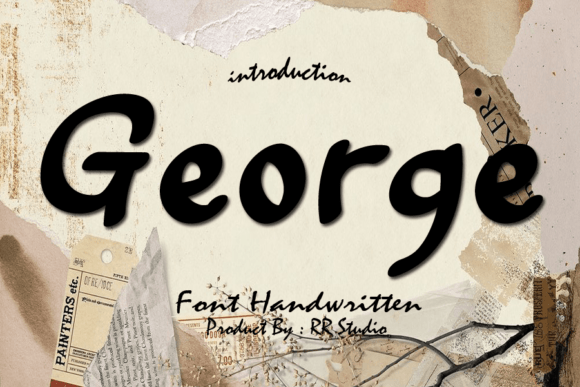
George Font
About George Font
“George Font: Sweet and Cursive Elegance for Creative Delight
Introducing George, a sweet and cursive handwritten font designed to bring a gentle and joyful touch to your creative projects. This font exudes a romantic charm that will look gorgeous on a variety of design ideas, adding a delightful and whimsical element to your work.
George is more than just a font; it’s a design asset that infuses your projects with a sweet and cursive elegance. The gentle curves and flowing script make it a versatile choice for a wide range of creative applications.
The sweet and cursive elegance of George shines through in its ability to enhance the visual appeal of your designs. Whether you’re creating logos or working on corporate identity, George adapts effortlessly to bring a touch of joy to your creations.
For headlines and logotypes, George becomes a standout choice, adding a sweet and romantic touch to your text. The font’s cursive style contributes to a visually pleasing and memorable design.
In various creative projects such as posters, music covers, social media posts, and more, George serves as a delightful element, creating a visual impact with its handwritten charm. Its versatile design adds a touch of whimsy to your creative endeavors.
George’s suitability extends to a wide array of design applications, making it ideal for logotypes, corporate identity, posters, social media, and more. The font’s charming character enhances the overall aesthetics, creating a visually pleasing and memorable experience.
In conclusion, George is more than just a font; it’s a design companion that brings sweet and cursive elegance to your creative toolkit. Let George be the brushstroke that adds a delightful touch to the beauty of your projects. Embrace the joy and romantic charm of George, and watch as it transforms your ideas into visually enchanting and memorable experiences.”